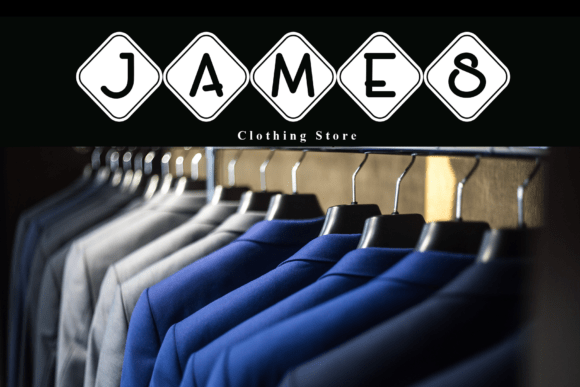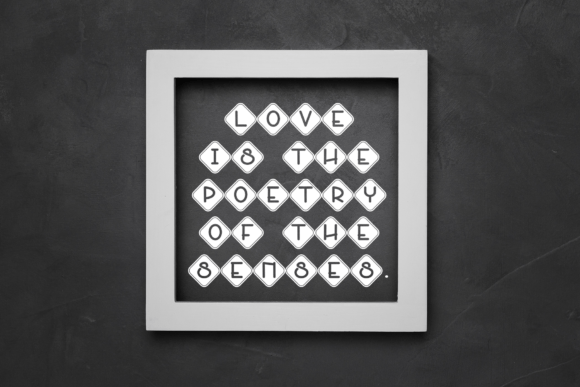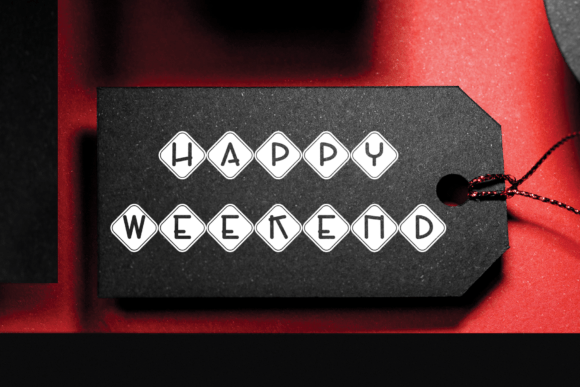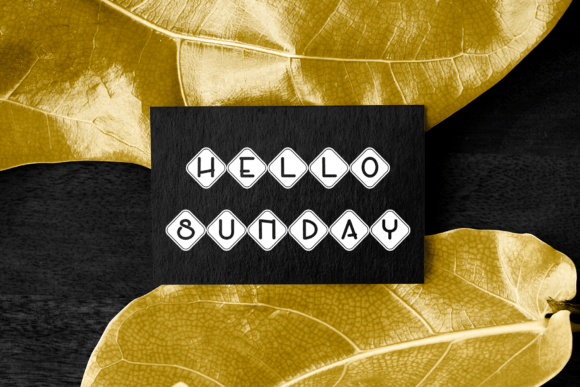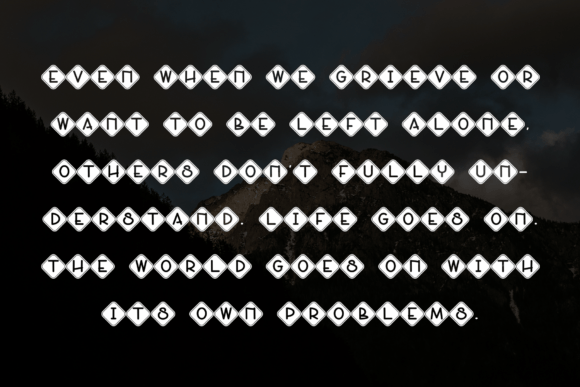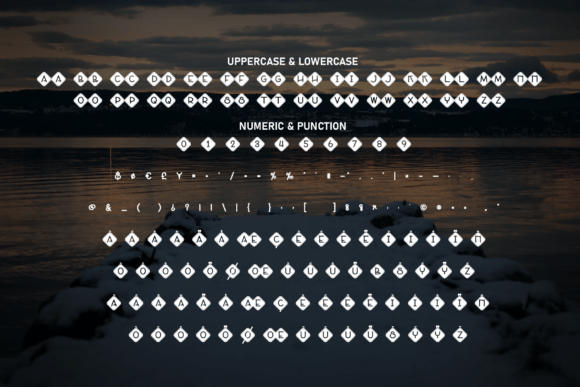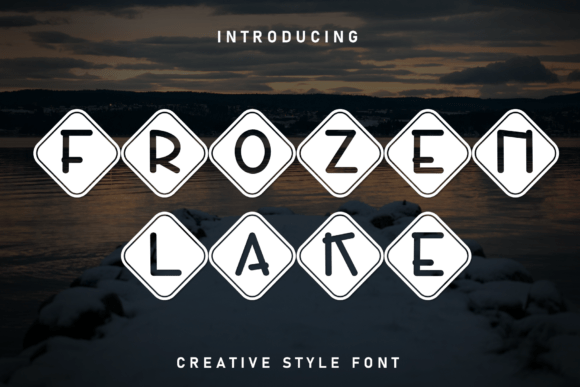
Introducing Frozen Lake Font: Elevate Your Designs with a Touch of Elegance
Are you tired of using the same old fonts in your designs? Do you want to add a touch of elegance and sophistication to your projects? Look no further than the Frozen Lake Font, a special creative product designed to give you an extraordinary experience. In this article, we’ll explore the features and benefits of this stunning font, and how it can elevate your designs to the next level.
Unleash Your Creativity with Frozen Lake Font
The Frozen Lake Font is a beautifully crafted typeface, perfect for a wide range of design projects. Whether you’re a designer, crafter, or DIY enthusiast, this font is designed to inspire your creativity and take your projects to new heights. With its unique and stylish letters, you can add a personal touch to your wall displays, wedding invitations, social media post logos, advertisements, product packaging, product designs, labels, photography, watermarks, invitations, stationery, and any project that requires tasteful handwriting.
The Frozen Lake Font is incredibly versatile, making it perfect for a wide range of design projects. Here are just a few ideas to get you started:
- Wedding invitations: Add a touch of elegance and romance to your wedding stationery.
- Social media graphics: Elevate your social media presence with stylish and eye-catching graphics.
- Product packaging: Stand out from the competition with unique and memorable packaging designs.
- Labels and stickers: Create custom labels and stickers for your products, gifts, or DIY projects.
- Photography: Add a professional touch to your photos with custom watermarks and overlays.
Why Choose Frozen Lake Font?
So, what sets the Frozen Lake Font apart from other fonts on the market? Here are just a few reasons why designers and crafters love this font:
- Unique style: The Frozen Lake Font boasts a distinctive and stylish design that’s sure to turn heads.
- High-quality: The font is crafted with precision and attention to detail, ensuring a high-quality finish.
Are you ready to take your designs to the next level? With the Frozen Lake Font, you can add a touch of elegance and sophistication to your projects. Whether you’re a seasoned designer or a DIY enthusiast, this font is sure to inspire your creativity and help you achieve your design goals.